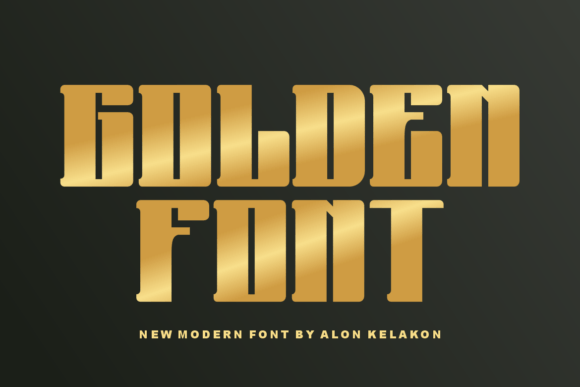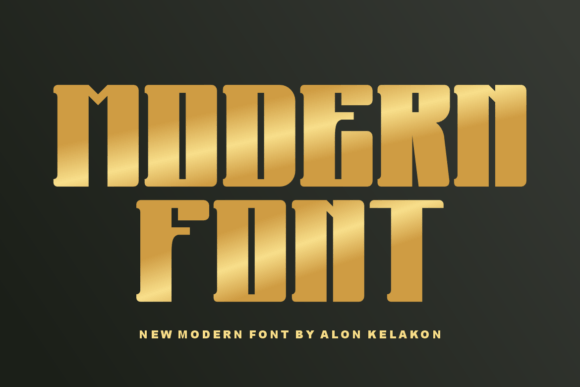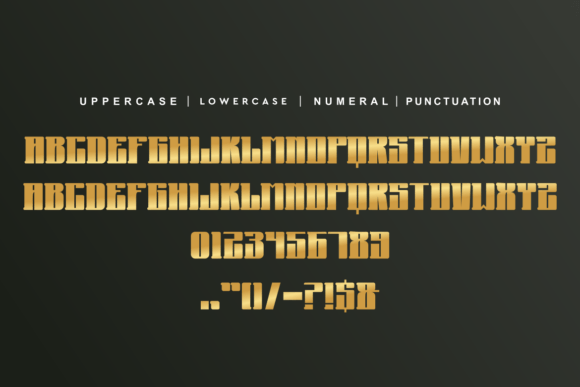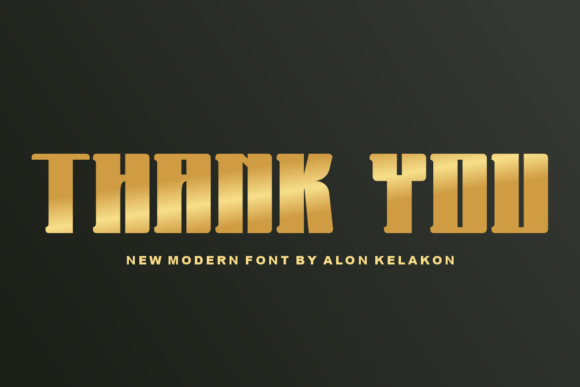
Introducing Gold Bazooka Font: The Ultimate Modern Display Font
In the world of typography, fonts play a crucial role in making designs stand out. Whether you’re a designer, craftsperson, or simply someone who loves to create, having the right font can elevate your project from ordinary to extraordinary. This is where the Gold Bazooka Font comes in – a modern and cool display font that’s taking the design world by storm.
What is Gold Bazooka Font?
Gold Bazooka is a bold and unique font that’s designed to make a statement. Its modern and sleek design makes it perfect for a wide range of applications, from books and magazine covers to social media posts and invitations. This font is not just a typographic style; it’s an experience that can transform your designs and take them to the next level.
Key Features of Gold Bazooka Font
- Bold and Unique: Gold Bazooka’s distinctive style ensures that your designs will stand out from the crowd.
- Modern and Cool: Its contemporary design makes it perfect for projects that require a fresh and trendy look.
- Versatile: This font can be used across various platforms and mediums, including digital and print.
- Easy to Read: Despite its boldness, Gold Bazooka remains clear and legible, making it suitable for body text and headlines.
Use Cases for Gold Bazooka Font
The versatility of Gold Bazooka Font makes it suitable for a myriad of design projects. Here are some of the ways you can use this fantastic font:
- Books and E-books: Use Gold Bazooka as a title font or for chapter headings to add a touch of modernity.
- Magazine Covers: Grab attention with bold, eye-catching headlines that demand to be noticed.
- Social Media Posts: Stand out in crowded social media feeds with unique and engaging text.
- Invitations: Whether it’s a wedding, birthday, or corporate event, Gold Bazooka adds a touch of elegance and modernity.
- Branding: Use Gold Bazooka as part of your brand identity to convey boldness and innovation.
Why Choose Gold Bazooka Font?
In a sea of fonts, Gold Bazooka stands out for several reasons:
- Uniqueness: It offers a fresh alternative to traditional fonts, ensuring your designs don’t go unnoticed.
- Quality: Crafted with attention to detail, Gold Bazooka provides a high-quality look that’s essential for professional designs.
- Flexibility: It can be used in various contexts, from digital media to print, without losing its charm.
How to Get the Most Out of Gold Bazooka Font
To maximize the impact of Gold Bazooka, consider the following tips:
- Pair it with Simplicity: Let Gold Bazooka be the star by pairing it with simpler fonts for body text.
- Experiment with Colors: While gold is in the name, don’t be afraid to experiment with different colors to match your brand or design theme.
- Play with Sizes: Use size variations to create visual hierarchy and emphasize key points.